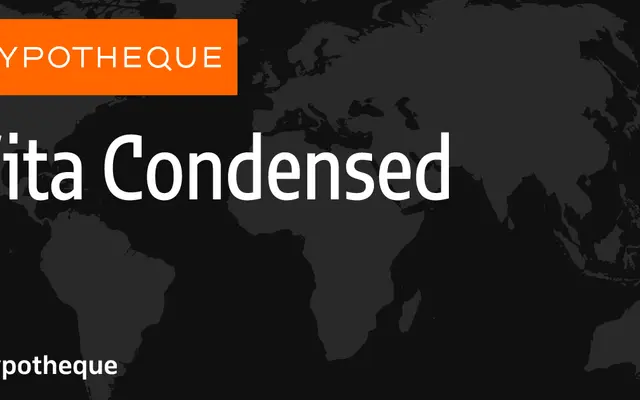
Vita Condensed
A condensed sans-serif family from Typotheque offered in seven weights from Hairline to Bold, each with a matching italic.
The condensed companion to Vita, this family spans seven weights from Hairline to Bold with italics throughout, making it well suited to editorial and information design where column width is constrained. Individual styles are sold under city names, from Amsterdam at Hairline Italic through to New Delhi at Bold. The range pairs naturally with the standard-width Vita for mixed-width typographic systems.
Vita Condensed reads as a humanist sans-serif in a condensed width, with a range of weights from Hairline to Bold suggesting a contemporary text and display family built for space-efficient setting.